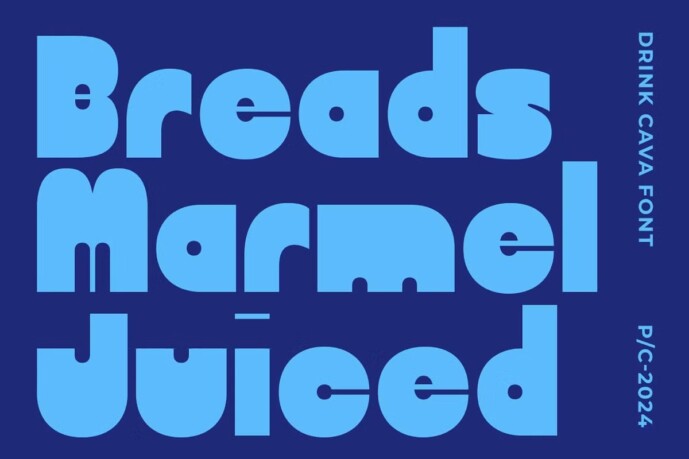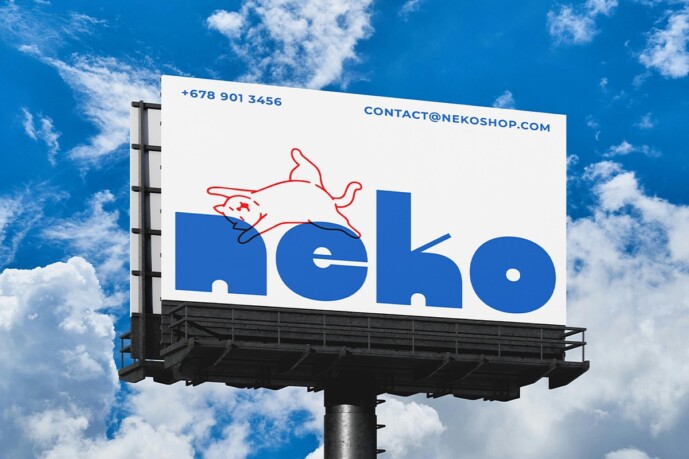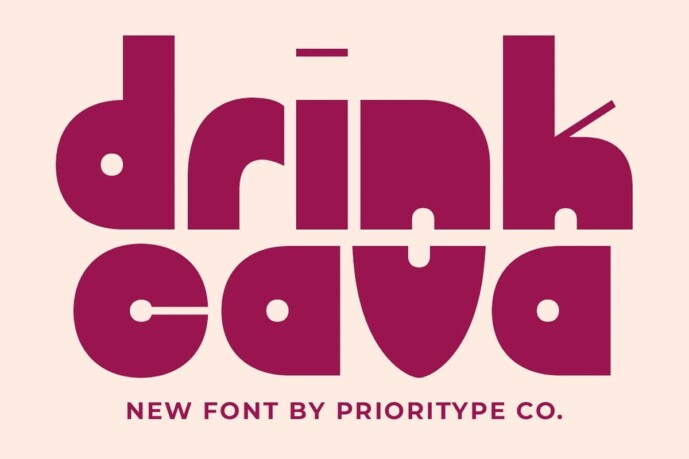
Drink Cava Font
Designer: Prioritype Co
Drink Cava Font, a bold font with slim details on certain characters, making it daring and unique. Playful with a retro-modern vibe, it’s perfect for posters, branding, and logos.